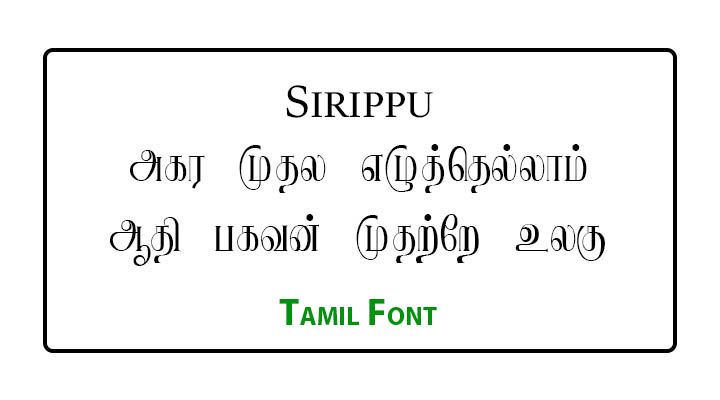
Sirippu Tamil Font Free Download. Sirippu is one of the Tamil Regular Font. Specially used in publications. Here you can download Font and Keyboard Layout for Free. This font is widely used by Tamil Nadu and Sri Lankan Tamil Peoples. The following font was design and generated by by Fontograpgher 3.5.
Preview of Sirippu Tamil Font